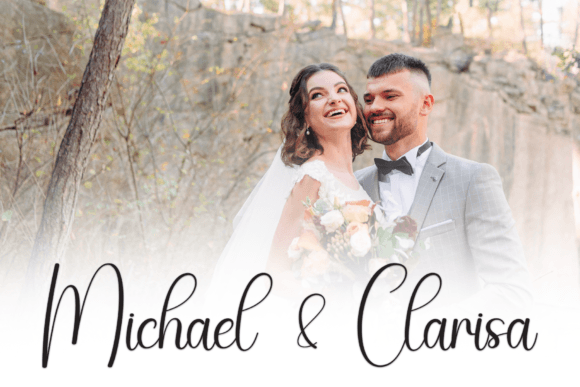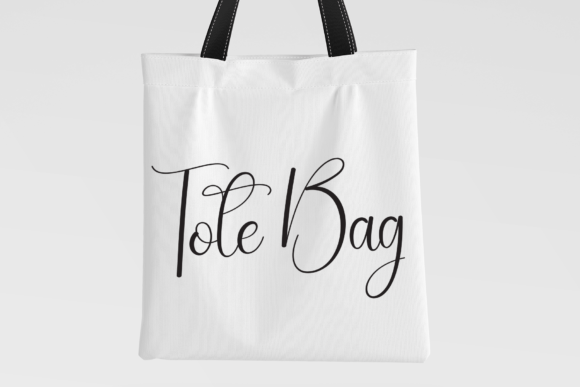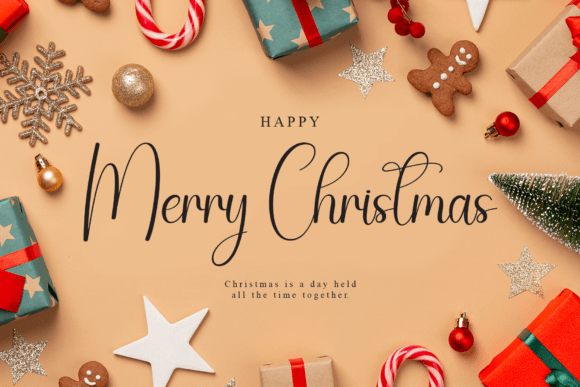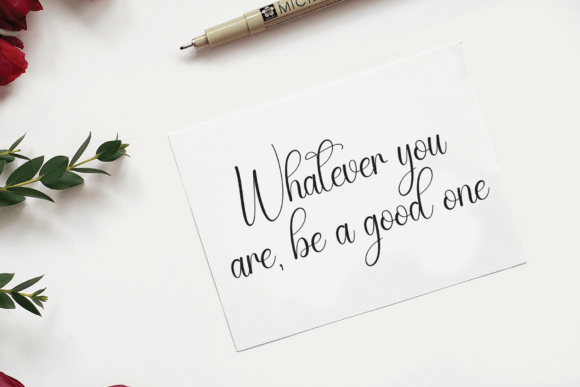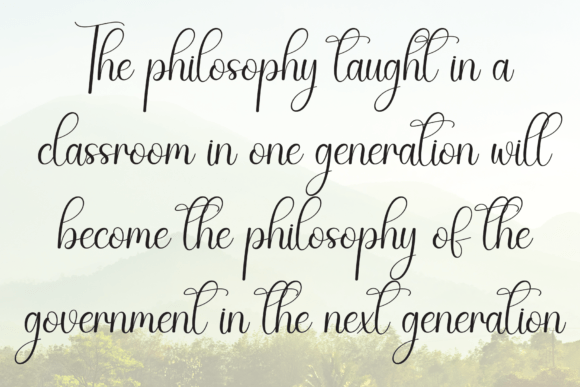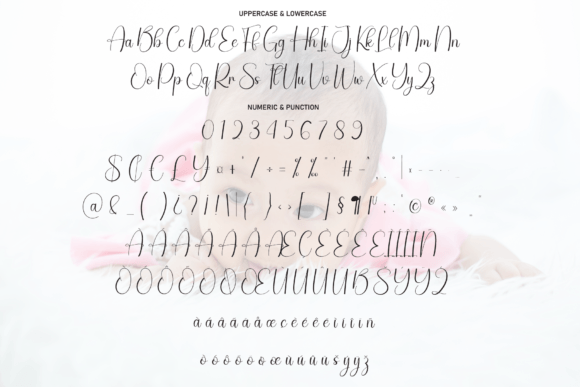
Babylove Font: The Perfect Choice for Adding a Touch of Warmth and Personality to Your Designs
Babylove is a lovely handwritten font that feels warm and inviting. Its playful curves and soft letters make your text look personal and charming, perfect for greeting cards, notes, or any project that needs a touch of love. In this article, we’ll dive into the world of Babylove font, exploring its features, uses, and benefits for designers and crafters.
What Makes Babylove Font So Special?
Babylove font is a unique and beautiful handwritten font that stands out from the crowd. Its distinctive features include:
- Playful curves: Babylove font features playful curves that give your text a sense of movement and energy.
- Soft letters: The font’s soft letters are gentle on the eyes, making it perfect for reading and adding a touch of warmth to your designs.
- Handwritten feel: Babylove font has a genuine handwritten feel that makes your text look personal and authentic.
Uses for Babylove Font
Babylove font is incredibly versatile and can be used for a wide range of projects, including:
- Greeting cards: Add a personal touch to your greeting cards with Babylove font’s warm and inviting style.
- Notes and letters: Make your notes and letters look special with Babylove font’s playful curves and soft letters.
- DIY projects: Use Babylove font to add a touch of personality to your DIY projects, such as scrapbooking, journaling, and crafting.
- Branding and marketing: Babylove font can also be used for branding and marketing materials, such as logos, packaging, and social media graphics.
Babylove font offers numerous benefits for designers and crafters, including:
- Customization: The font can be customized to fit your project’s needs, including adjusting the size, color, and style.
- Unique look: Babylove font’s unique look will set your designs apart from others and add a touch of personality to your work.
- Time-saving: Using Babylove font can save you time and effort, as it eliminates the need to create your own handwritten font from scratch.
Tips for Using Babylove Font
Here are some tips for getting the most out of Babylove font:
- Pair with other fonts: Experiment with pairing Babylove font with other fonts to create a unique and interesting look.
- Adjust the size: Adjust the size of Babylove font to fit your project’s needs, from small and delicate to large and bold.
- Add embellishments: Add embellishments, such as graphics or images, to enhance your design and make it more visually appealing.
Babylove font is a beautiful and versatile handwritten font that can add a touch of warmth and personality to your designs. Its playful curves, soft letters, and genuine handwritten feel make it perfect for a wide range of projects, from greeting cards and notes to DIY projects and branding materials. With its ease of use, customization options, and unique look, Babylove font is a must-have for designers and crafters looking to add a touch of love to their work.